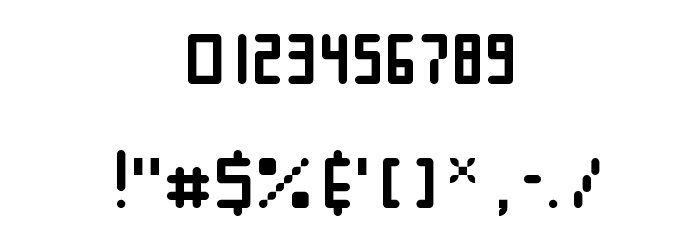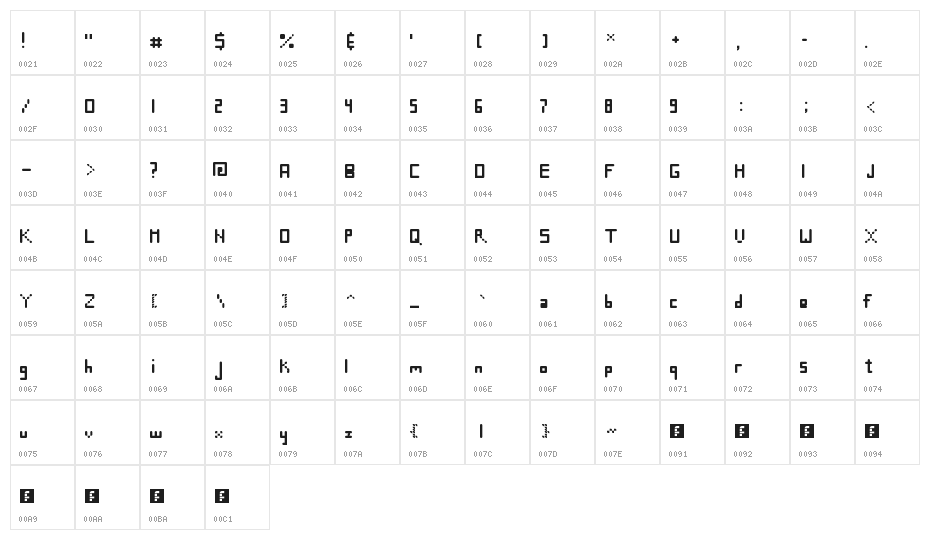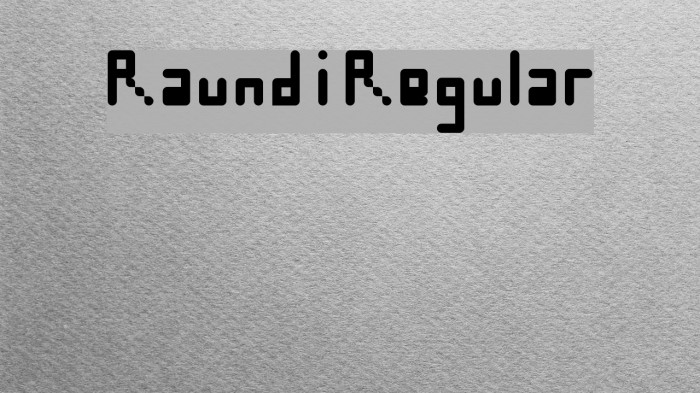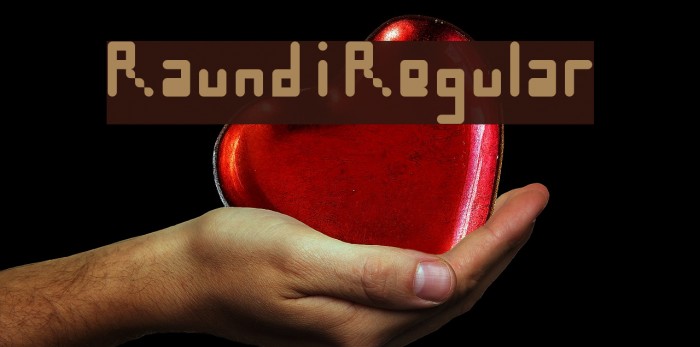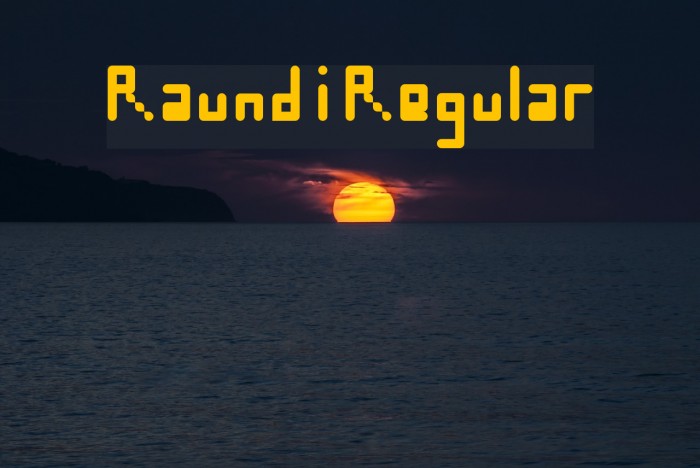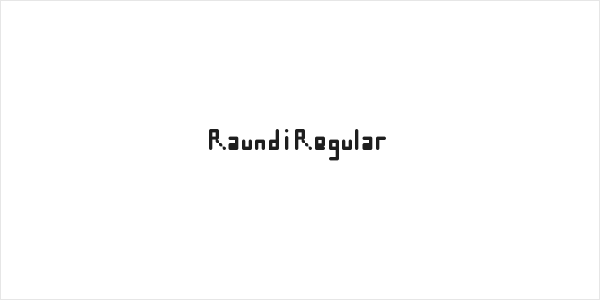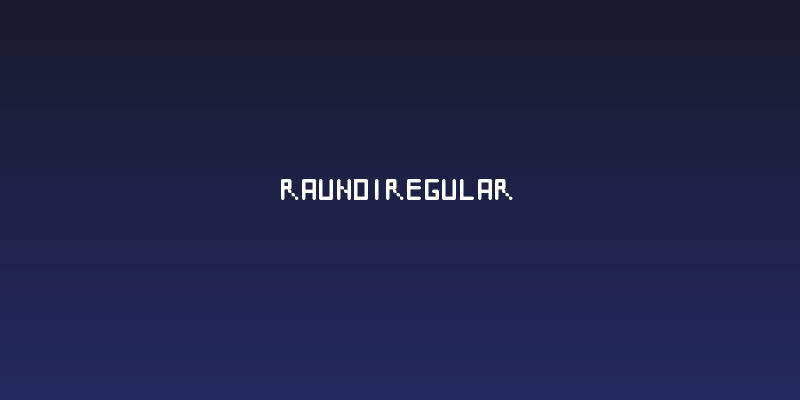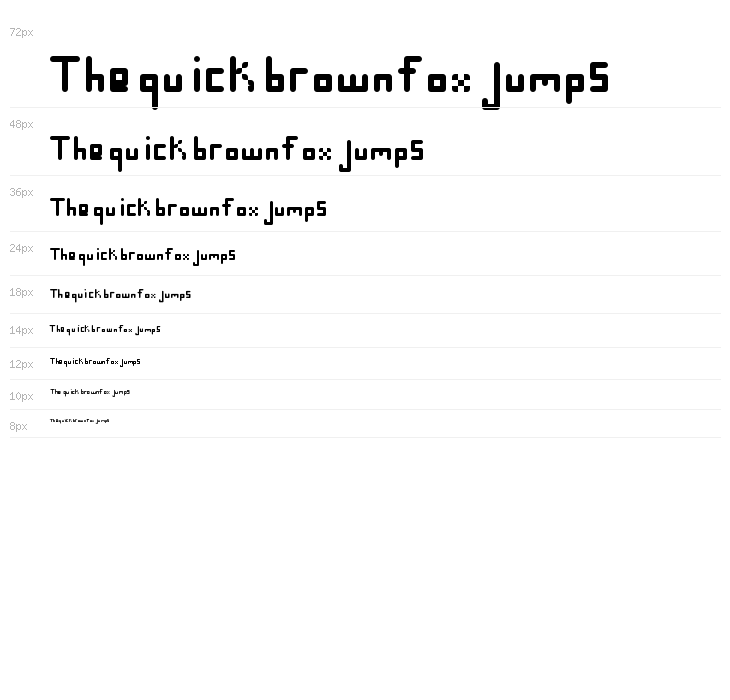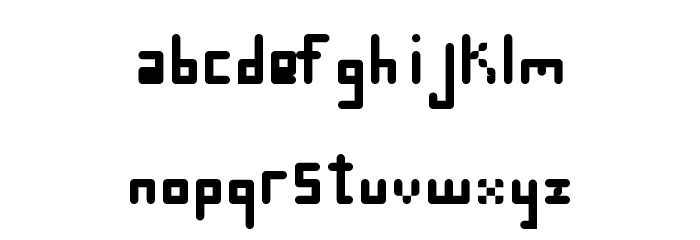
Raundi Regular Font
Raundi Regular Description
This font features a unique, modern design with rounded edges and a playful, digital aesthetic. The characters are composed of solid lines interspersed with small, circular gaps, creating a dotted effect that adds a sense of movement and rhythm. The uppercase and lowercase letters maintain a consistent height, contributing to a uniform appearance. The numerals and special characters follow the same stylistic approach, ensuring cohesion across all elements. This font's distinctive style makes it suitable for creative and contemporary projects.